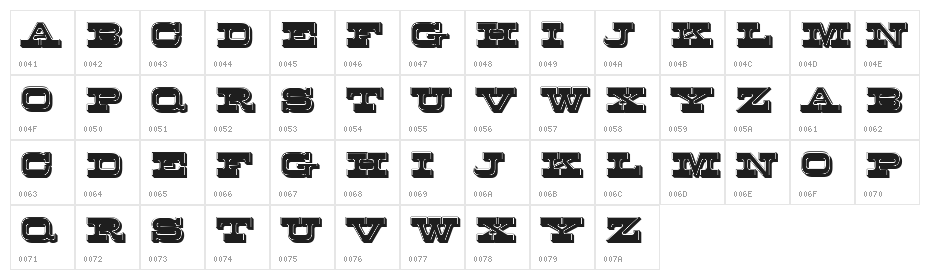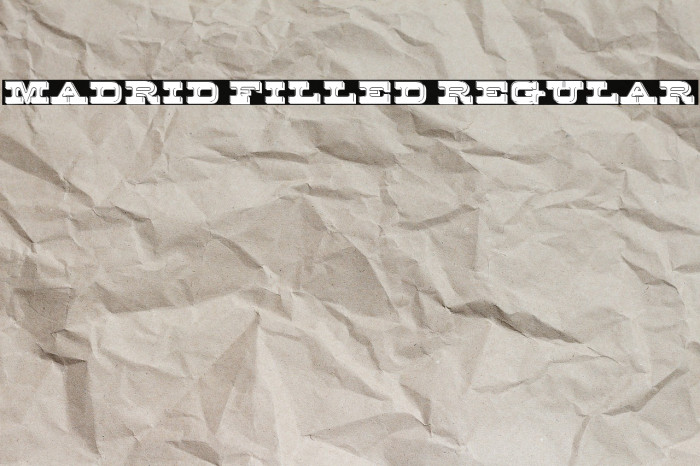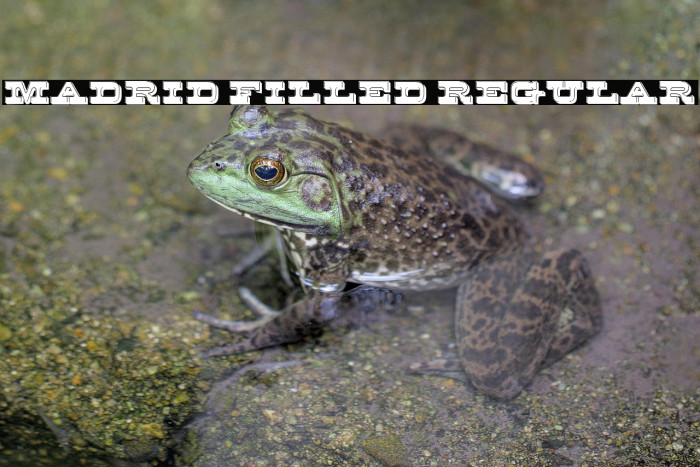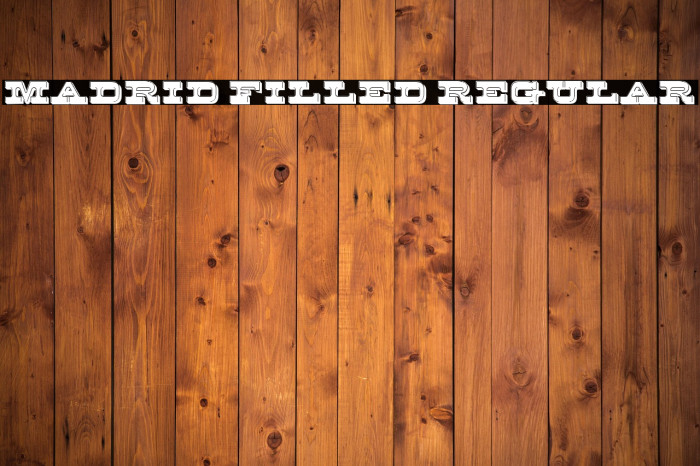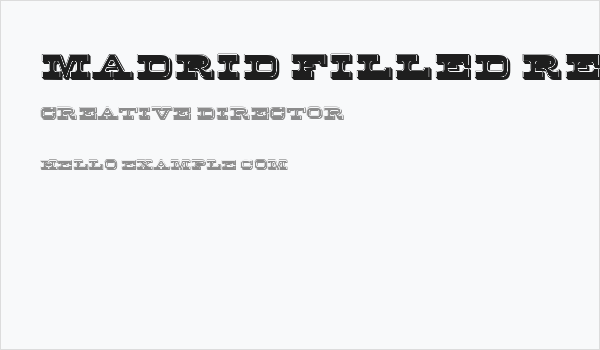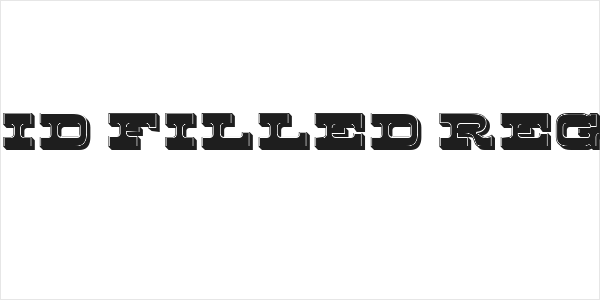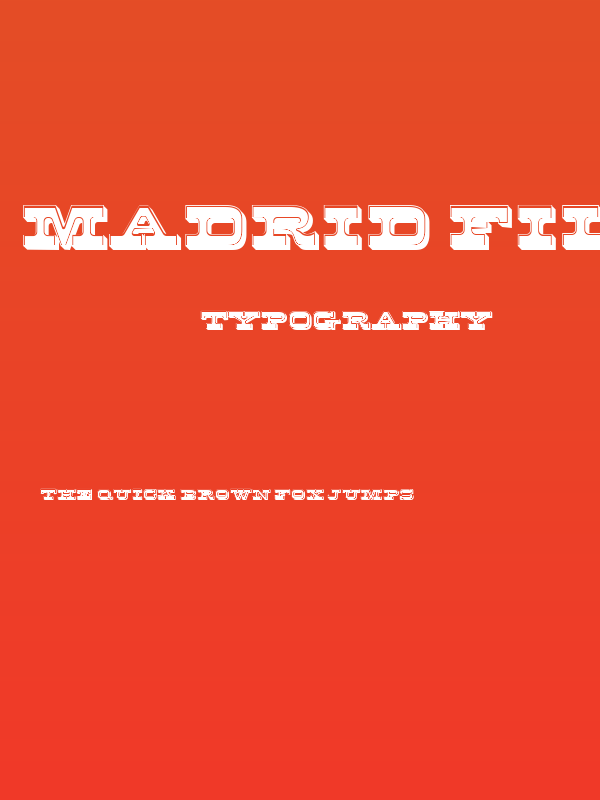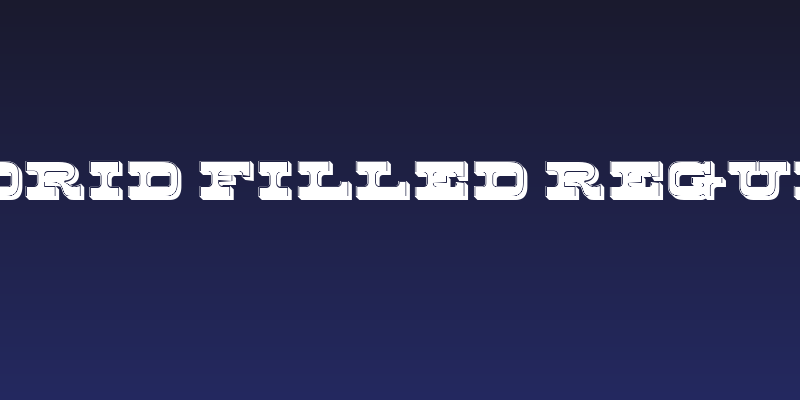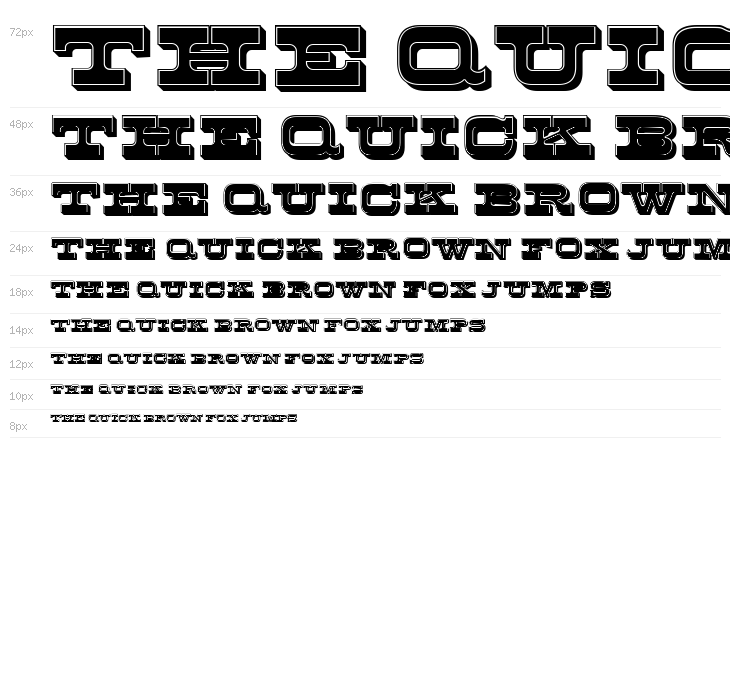
Madrid Filled Regular Font
Madrid Filled Regular Description
This font features a bold and striking design with a filled, blocky appearance. Each character is outlined, creating a strong visual impact that is both modern and eye-catching. The letters are uniformly structured, with a consistent height and width, giving them a balanced and cohesive look. The filled style adds depth and dimension, making the text stand out prominently. This font is ideal for projects that require a bold statement, as it commands attention and conveys a sense of strength and stability.
| Proposed Projects | Ideal for headlines, posters, branding, and any design needing a strong visual impact. |